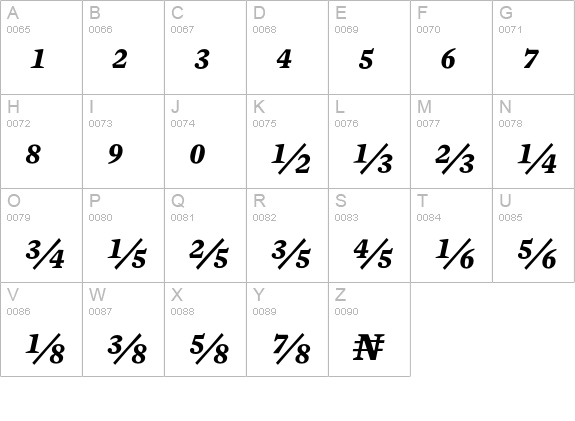
Mercury Numeric G3 Bold Italic Font Details
Mercury Numeric G3 Bold Italic is a strong, high-contrast, italic variant in the Mercury typeface family \xE2\x80\x94 well suited to headlines, attention-grabbing titles, and strong calls-to-action.
Mercury Numeric G3 Bold Italic is a sleek and modern font that exudes confidence and professionalism. Its bold weight and italic styling make it perfect for adding emphasis and sophistication to any design project. With its clean lines and sharp angles, this font is sure to make a bold statement. The best part? Mercury Numeric G3 Bold Italic is available for free download at FontsMarket.com. Whether you are working on a website, a poster, a logo, or any other design project, this font will elevate your work to the next level. Don't miss out on the opportunity to add this stylish and versatile font to your collection. Download it for free today and start creating stunning designs with Mercury Numeric G3 Bold Italic.